Faroline Font
Faroline is a sweet and friendly paint brushed display font. This font would be ideal for writing web designs, business cards, or pretty much anything else that requires a unique touch.
Konstanz is a sans serif font family inspired by the design of books and magazines for museums, art galleries, design biennials, architecture, and theater, among others. Its design focuses on a grotesque aesthetic but brings back certain shapes from Bauhaus and Futura. Konstanz includes 8 weights plus its matching italics, besides a stylistic set that increases its use possibilities. Konstanz ensures a graphic with a high impact and is ideal for designing editorial projects, posters, branding, and advertising.
Shutterland Font
Shutterland is a natural hand brushed handwritten font, featuring a stylish scratch. It is perfect for branding projects, logo, wedding designs, social media posts, advertisements, product packaging, and so much more. This font is PUA encoded which means you can access all of the glyphs and swashes with ease!
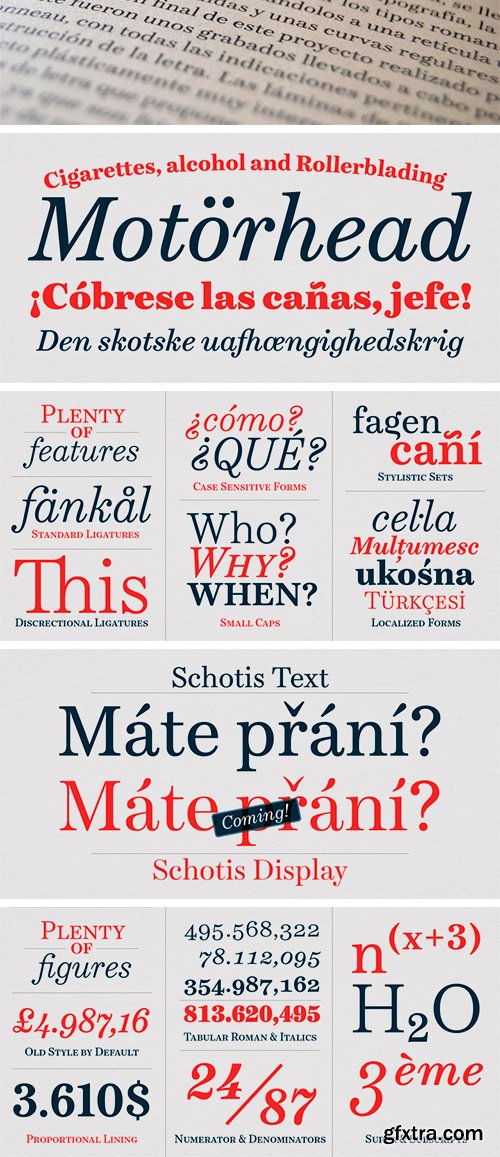
Schotis Text is a workhorse typeface designed for perfect reading on running texts. Its design is based in Scotch Roman 19th-century style but designed from scratch, with a more contemporary and not nostalgic look.
Bucherry Font
Bucherry is a stylish and delicate handwritten font. It has a clean, thin and smooth vibe and it will be a hit for any design that you want to add it to.
Braga Font
Braga is a modern display font that is readable, bold and stylish. It is defined by smooth curves and is perfect for fashion branding or editorial designs. Add it confidently to your projects, and you will love the results.
Hello Chamelia Font
Hello Chamelia is a lovely handwritten font. Use it for any design projects that require a charming appearance! This font is PUA encoded which means you can access all of the glyphs and swashes with ease!
Obveron Font
Obveron is a modern and bold display font. Add it to your most creative ideas and notice how it makes them come alive!
Ligther Font This font is ideal for branding and decorate your any project. Included
Actolese | Modern Style Font with a calligraphy style, So beautiful on invitation like greeting cards, branding materials, business cards, quotes, posters, and more!
Sakoteng | Handwriting Script Font with a calligraphy style, So beautiful on invitation like greeting cards, branding materials, business cards, quotes, posters, and more!
Circe Slab Font Family (Updated + Italics)
Circe Slab is a slab version of the popular geometric sans serif Circe. It contains variations in weight and contrast, including three regular styles that range from non-contrasting geometric (Circe Slab A) to almost typical book serif contrast ones (Circe Slab C). In addition, all text styles have narrowed versions. The character set of the font includes small caps, minuscule figures and a wide variety of alternative capitals and small caps. Regular styles of Circe Slab are suitable for long texts and the light and bold ones for headlines. The font was designed by Alexandra Korolkova with the assistance of Oleksa Volochay and released by Paratype in 2018.
The Wild Chaos Font
The Wild Chaos is a brushed, trendy display font. Its vintage style will fit a variety of creative ideas. Add it confidently to your projects, and you will love the results.
Quinger Font
Quinger is a graceful and luxurious display font. Its modern style will fit a variety of elegant designs. Add it confidently to your projects, and you will love the results.
Chelya Font
Chelya is a unique handwritten font with an elegant feel. Fall in love with its completely different and timeless style and use it to create spectacular designs! This font is PUA encoded which means you can access all of the glyphs and swashes with ease!
Varigation Font
Varigation is a gorgeous and assertive handwritten font, crafted to give your headlines and logotype projects a stylish touch. This font reads as strong, confident, and dynamic and can add tons of nostalgic character to your designs.
Benorante Font
Benorante is a playful display font. This font is the ideal font for adding an adventurous and authentic feel to your next design idea!
Pelytta Font
Pelytta is a thin and casual handwritten font. Use it to make your ideas even more realistic and create spectacular designs!
Jaggielka Font
Jaggielka is a relaxed yet delicate calligraphy typeface with characters that dance along the baseline. It can be used for various purposes such as logos, wedding invitations, headings, t-shirts, letterhead, signage, labels, news, posters, badges and so much more. Jaggielka is PUA encoded which means you can access all of the glyphs and swashes with ease!
Be Humble Font
Be Humble is a bold and interesting serif font. Clean and a little bit quirky, this font is the perfect fit for all of your logos, branding, social media, and crafty DIY projects. This font is PUA encoded which means you can access all of the glyphs and swashes with ease!
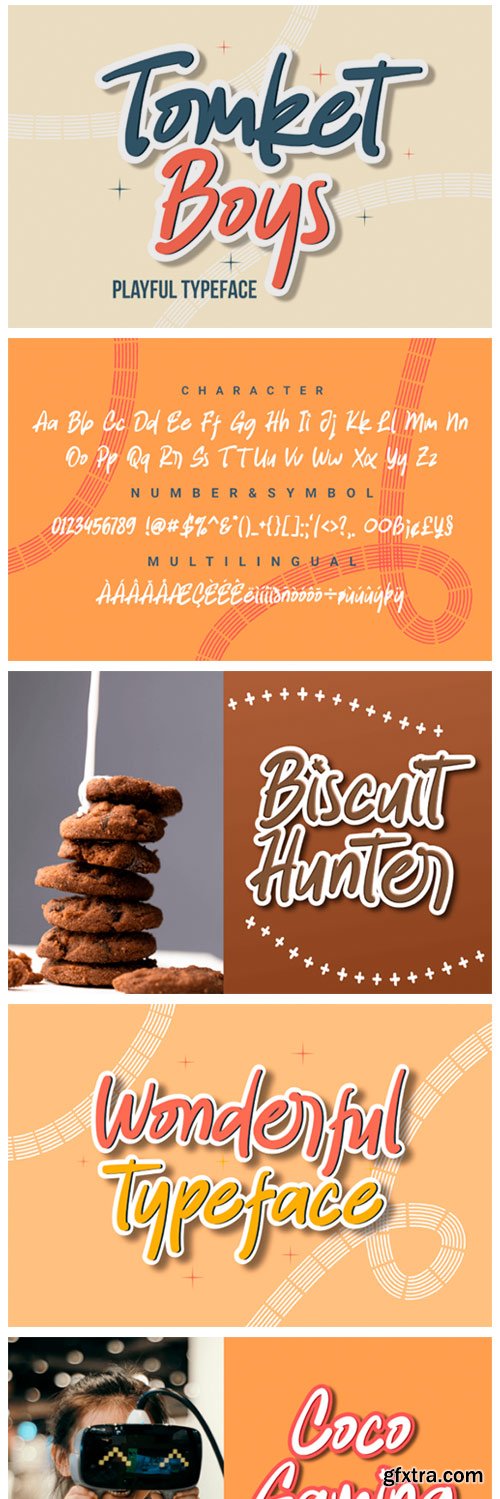
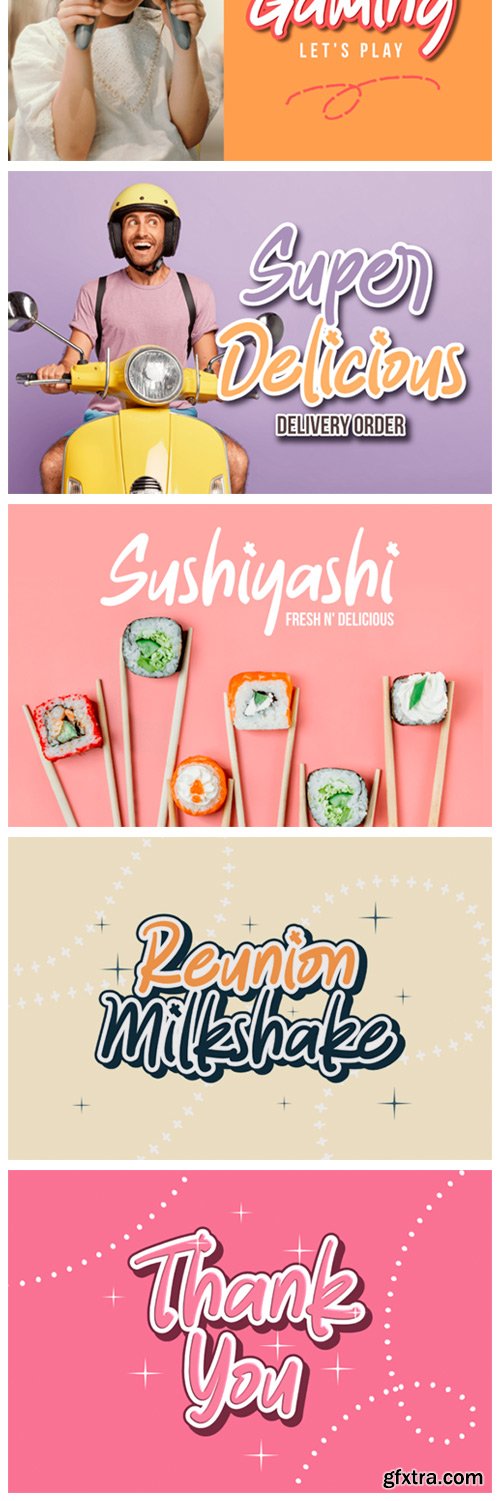
Tomket Boys Font
Tomket Boys is a fun and relaxing handwritten font. Clean and a little bit quirky, this font is the perfect fit for all of your logos, branding, social media, and crafty DIY projects.
Gamaleon Font
Gamaleon is a stylish and incredibly graceful script font. Every letter has a unique and beautiful touch, which will make your design come alive! Gamaleon is the best choice for creating eye catching logos, branding and quotes.